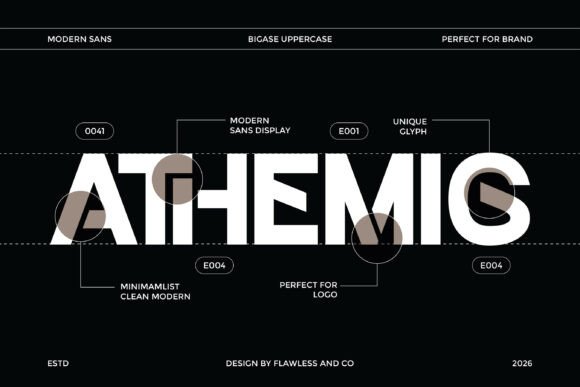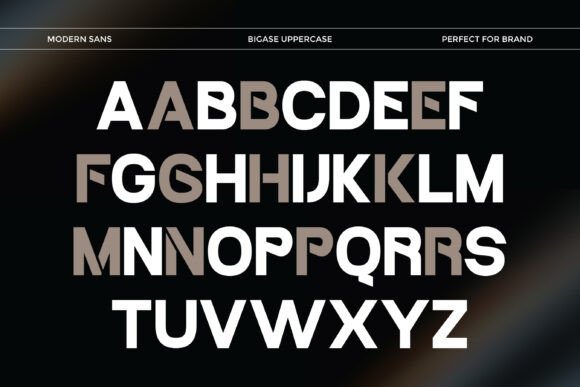
Introducing Bigase Font: The Modern Sans Display Font for Bold Statements
In the world of typography, fonts play a crucial role in conveying messages, expressing emotions, and creating visual identities. For designers, crafters, and marketers, finding the right font can make all the difference in their creative projects. If you’re looking for a font that exudes confidence, modernity, and impact, look no further than Bigase Font. In this article, we’ll explore the features, benefits, and uses of Bigase, the perfect choice for making a bold statement.
What is Bigase Font?
Bigase is a modern sans display font designed to make a bold and confident statement. With its clean structure, strong shapes, and contemporary style, Bigase delivers a striking visual presence that instantly captures attention. Its modern design approach ensures a perfect balance between simplicity and impact, making it an ideal choice for designers, crafters, and marketers looking to elevate their creative projects.
Key Features of Bigase Font
- Clean Structure: Bigase features a clean and minimalist design, ensuring that your message is conveyed clearly and effectively.
- Strong Shapes: The font’s strong shapes and bold lines create a sense of confidence and stability, perfect for making a lasting impression.
- Contemporary Style: Bigase’s modern design approach ensures that your project looks fresh, contemporary, and on-trend.
- Perfect Balance: The font strikes a perfect balance between simplicity and impact, making it versatile and easy to use.
Benefits of Using Bigase Font
So, why choose Bigase Font for your creative projects? Here are just a few benefits:
- Instant Attention: Bigase’s striking visual presence instantly captures attention, ensuring that your message is seen and heard.
- Versatility: The font’s clean and simple design makes it versatile and easy to use across various mediums, from digital platforms to print materials.
- Professional Look: Bigase’s modern and confident style ensures that your project looks professional, high-end, and polished.
- Easy to Read: Despite its bold and striking design, Bigase is easy to read, ensuring that your message is conveyed clearly and effectively.
Uses of Bigase Font
Bigase Font is perfect for a wide range of creative projects, including:
- Branding and Logo Design: Use Bigase to create a bold and confident brand identity that makes a lasting impression.
- Advertising and Marketing: The font’s striking visual presence makes it perfect for advertising and marketing materials, such as billboards, posters, and social media graphics.
- Web Design: Bigase is ideal for web design, adding a touch of modernity and sophistication to your website or landing page.
- Print Materials: Use Bigase for print materials, such as brochures, flyers, and business cards, to create a professional and polished look.
In conclusion, Bigase Font is a modern sans display font that delivers a bold and confident statement. With its clean structure, strong shapes, and contemporary style, Bigase is perfect for designers, crafters, and marketers looking to elevate their creative projects. Its versatility, readability, and professional look make it an ideal choice for a wide range of applications, from branding and advertising to web design and print materials. If you’re looking for a font that makes a lasting impression, look no further than Bigase Font.